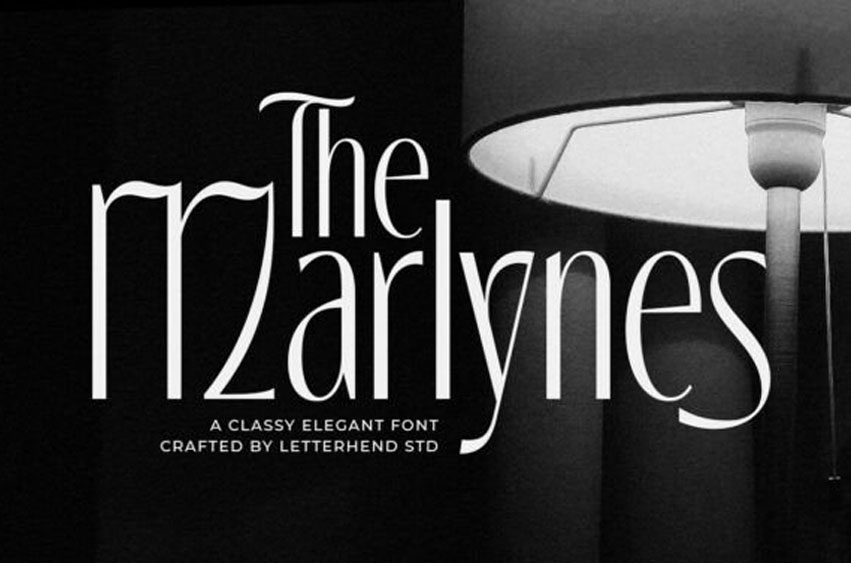
The Marlynes Font
The Marlynes Font is a Classy and Elegant Serif Font. Introducing The Marlynes, a timeless serif font that blends sophistication with graceful modernity.
Each letter is crafted with fine attention to detail — tall, slender forms paired with elegant curves and subtle contrasts. This font radiates luxury and refinement, perfect for branding, invitations, editorials, fashion logos, and high-end packaging.
The Marlynes captures the essence of classic beauty with a contemporary twist. Its artistic serifs and refined lines make every design feel polished and exclusive.
Whether you’re creating a boutique brand, an editorial layout, or a luxury logo, The Marlynes brings effortless charm and class to your project.